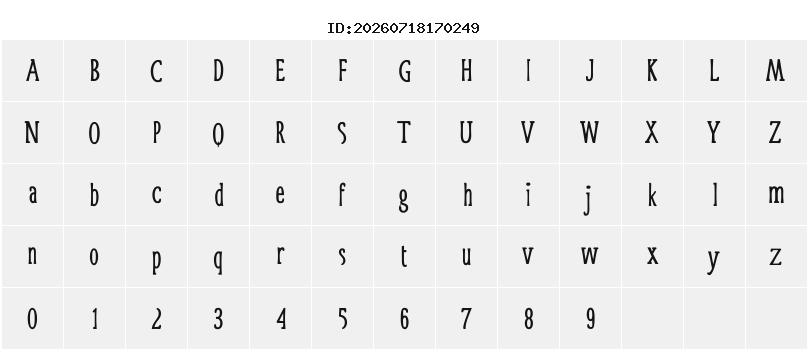
• Font Name: Cuty
• Font Style: Roman
• Full Font Name: Cuty
• PostScript Name: Cuty
• Character Count: 217
About Cuty.ttf
Cuty.ttf is a modern, elegant sans-serif font designed for ultimate readability and visual harmony. Perfect for branding, headlines, web design, and print materials.